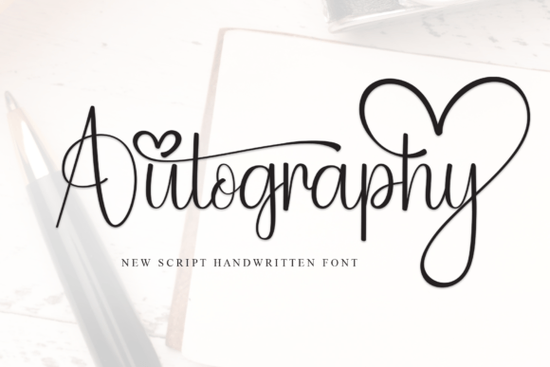
Finding the right handwritten font can make or break a design. Autography Font is a delicate, flowing script with well-balanced characters that works across a surprisingly wide range of projects. Whether you're building a brand identity, designing wedding stationery, or creating digital products to sell, this font brings a polished handwritten feel without looking messy or overly casual.
What kind of projects does Autography Font work best for?
Autography has an elegant, fluid style that suits projects where you want a personal, refined touch. Think of designs that need warmth but still look professional. Here are some real-world uses:
- Wedding invitations and event stationery Its delicate letterforms give off a romantic, handcrafted vibe that couples love.
- Logo design for small businesses Boutiques, florists, bakeries, and lifestyle brands often need a script font that feels approachable yet upscale.
- Social media graphics Quotes, announcements, and promotional posts look more engaging with a flowing Autography typeface layered over photos.
- Greeting cards and printable wall art The balanced character spacing keeps text readable even at smaller sizes.
- Print-on-demand products Mugs, tote bags, and t-shirts benefit from a font that's stylish but legible.
If you sell digital downloads on Etsy or Creative Market, pairing Autography with a clean sans-serif can give your templates a modern, layered look that buyers are actively searching for.
How does Autography compare to other script fonts?
There are thousands of handwritten and script fonts available, so what makes this one worth your attention? A few things stand out:
Consistency across characters. Some handwritten fonts look beautiful in short words but fall apart in longer phrases. Autography holds up well because each letter connects smoothly, and the overall rhythm stays even. This matters when you're typesetting quotes, names, or product descriptions.
Not too thick, not too thin. The stroke weight sits in a comfortable middle ground. It doesn't disappear on busy backgrounds, and it doesn't overpower other design elements either. This balance makes it flexible for both digital screens and print.
Elegant without being stiff. Some calligraphy fonts lean formal great for luxury branding but awkward for casual projects. Autography strikes a balance between sophistication and approachability, which is exactly what most designers need.
What fonts pair well with Autography?
Pairing script fonts with the right complementary typeface is where good design becomes great. Here are some combinations that work naturally:
- With a clean sans-serif Fonts like Montserrat, Poppins, or Raleway let Autography shine as the headline while keeping body text readable.
- With a light serif For a more editorial, romantic feel, pair it with something like Playfair Display or Lora.
- With another script (carefully) If you want to layer two scripts, make sure they have different weights or styles. A bolder option like Sunshine could contrast nicely with Autography's lighter flow.
A good rule of thumb: use Autography for headlines, names, or short phrases, and reserve longer paragraphs for a simpler typeface. This keeps designs clean and ensures readability.
Is Autography Font a good choice for Cricut and Silhouette projects?
Yes, but with a small caveat. Flowing script fonts like Autography can have thin connecting strokes that are tricky to cut at very small sizes. If you're using it with a cutting machine, test it at the size you plan to cut before committing to a full run. At medium to large sizes think mugs, tote bags, and wall decals it cuts cleanly and looks beautiful.
Where else can you find similar elegant script fonts?
If you like Autography's aesthetic, you'll probably also appreciate fonts like Smithson, which has a slightly different personality but a similar level of refinement. Exploring a few options helps you build a small, versatile font library that covers most client and personal project needs without buying dozens of typefaces.
Quick checklist before using Autography in your next project
- ✅ Pair it with a simple secondary font Let Autography handle the headlines; keep body text clean.
- ✅ Use OpenType features if available Alternate characters and ligatures can add variety to your designs.